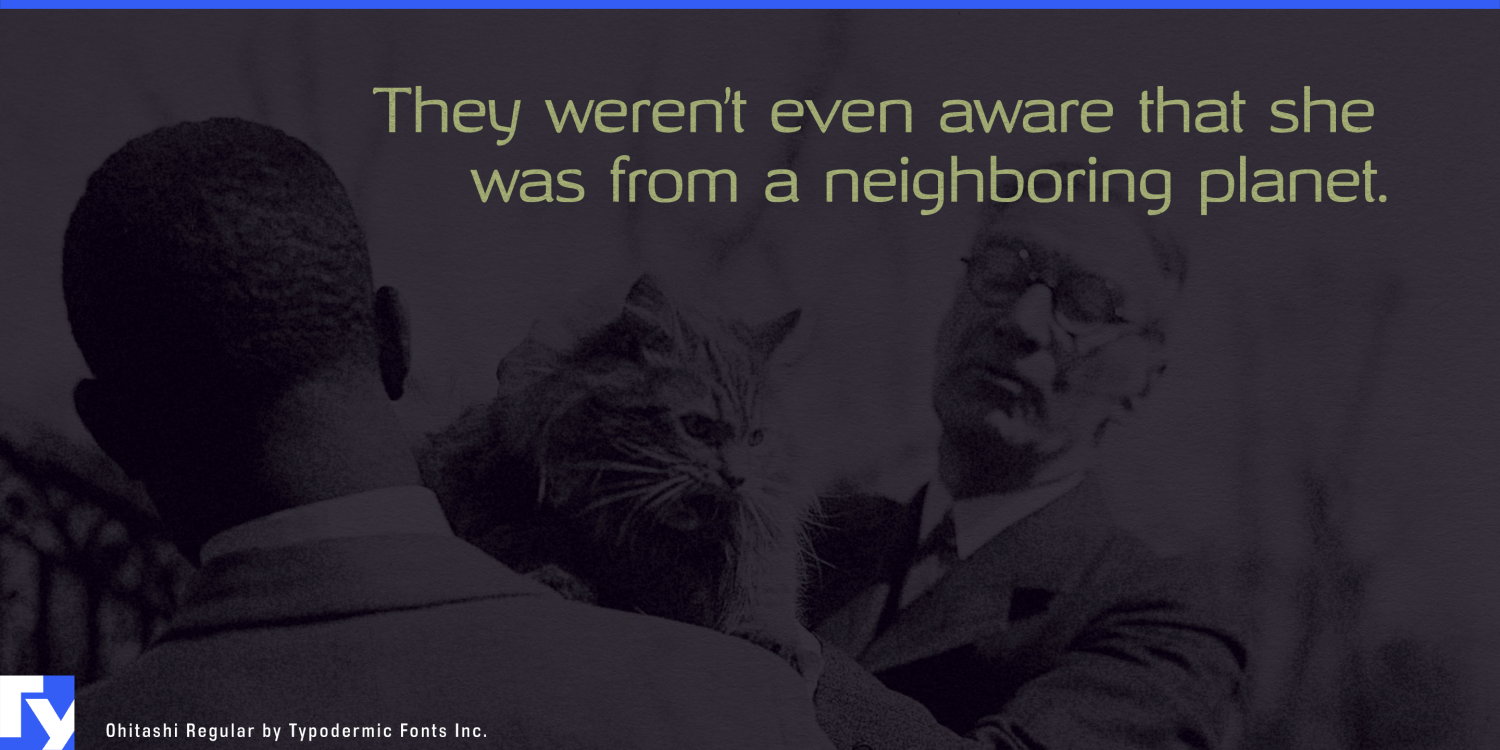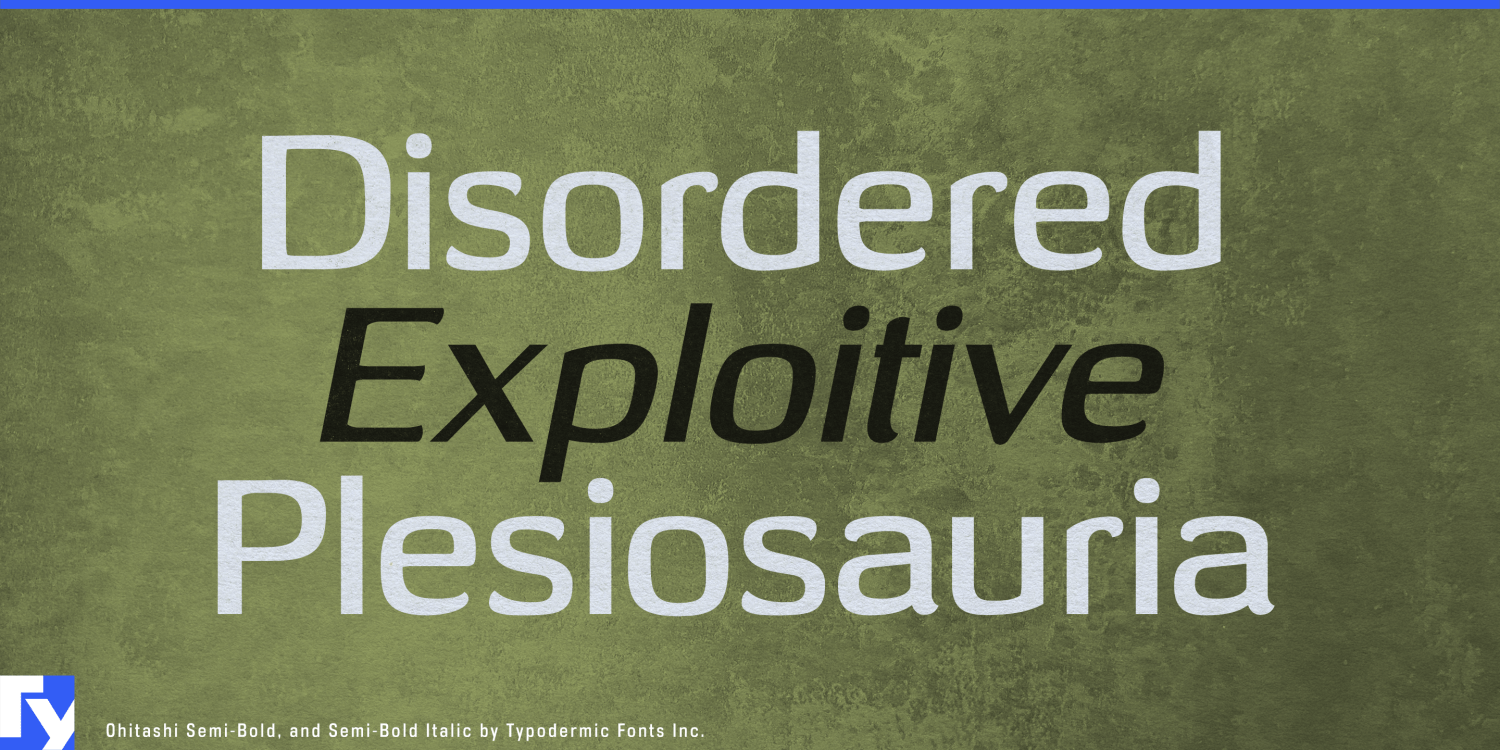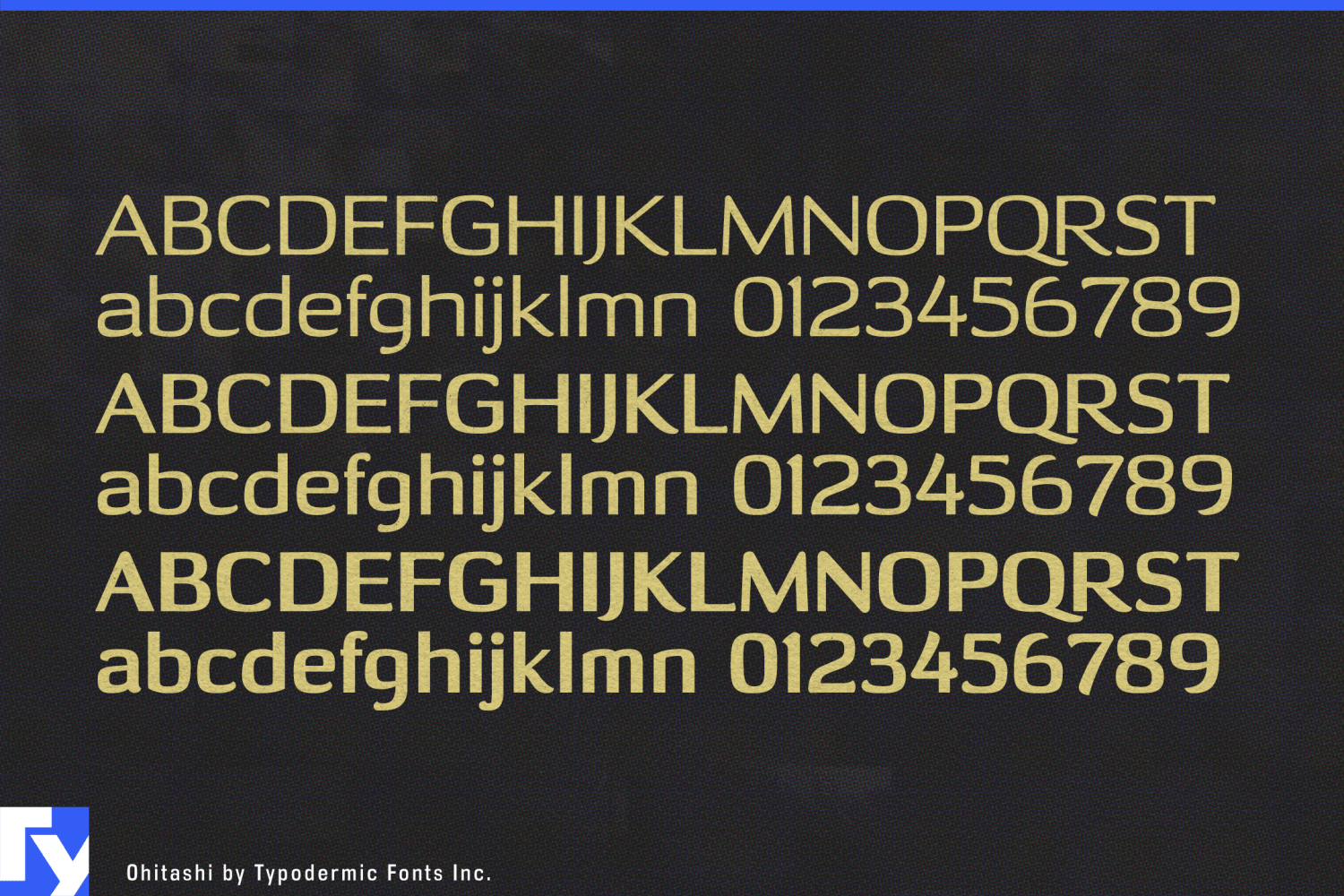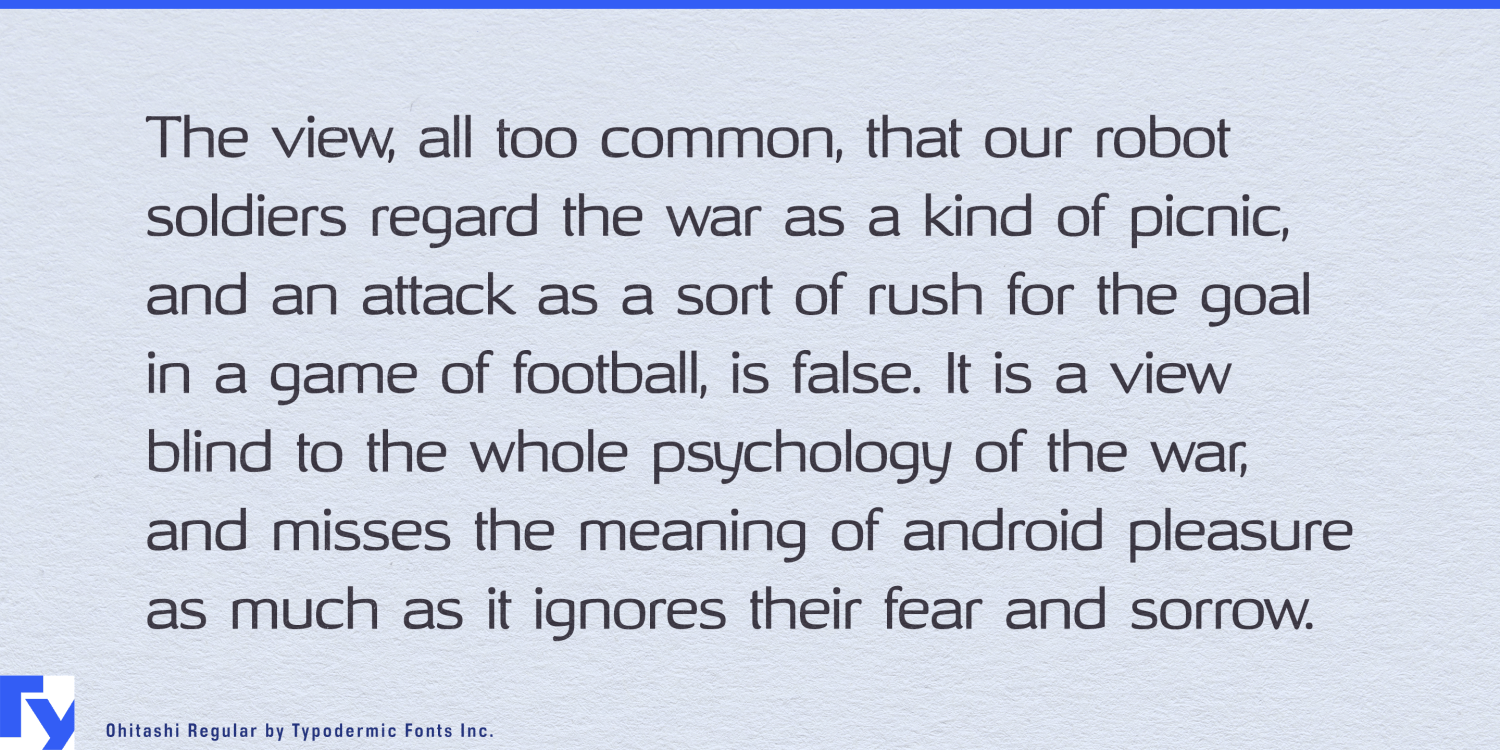
About Ohitashi
In the zen garden of typography, where sans-serifs stand like neatly trimmed bonsai, Ohitashi emerges as a wild orchid—exotic, unexpected, yet perfectly at peace with its surroundings. This isn’t just a typeface; it’s a meditation on…